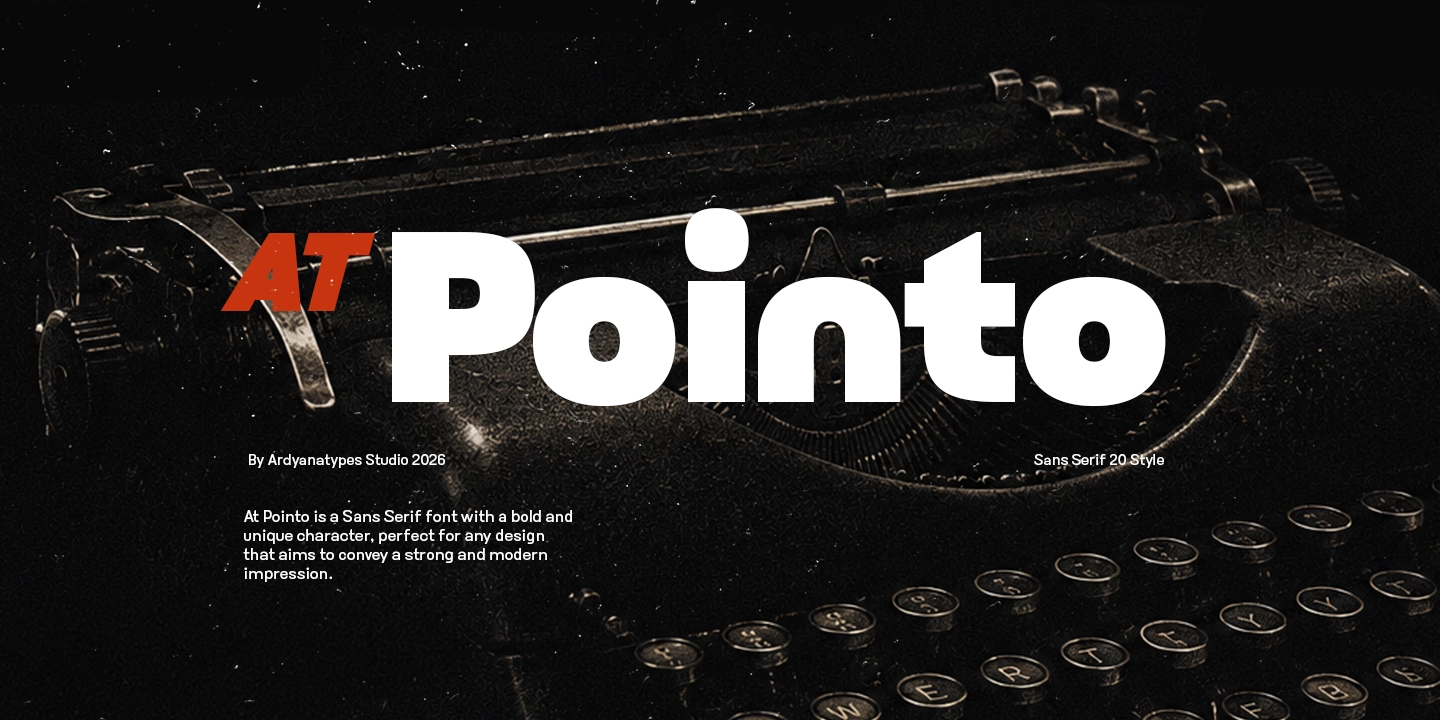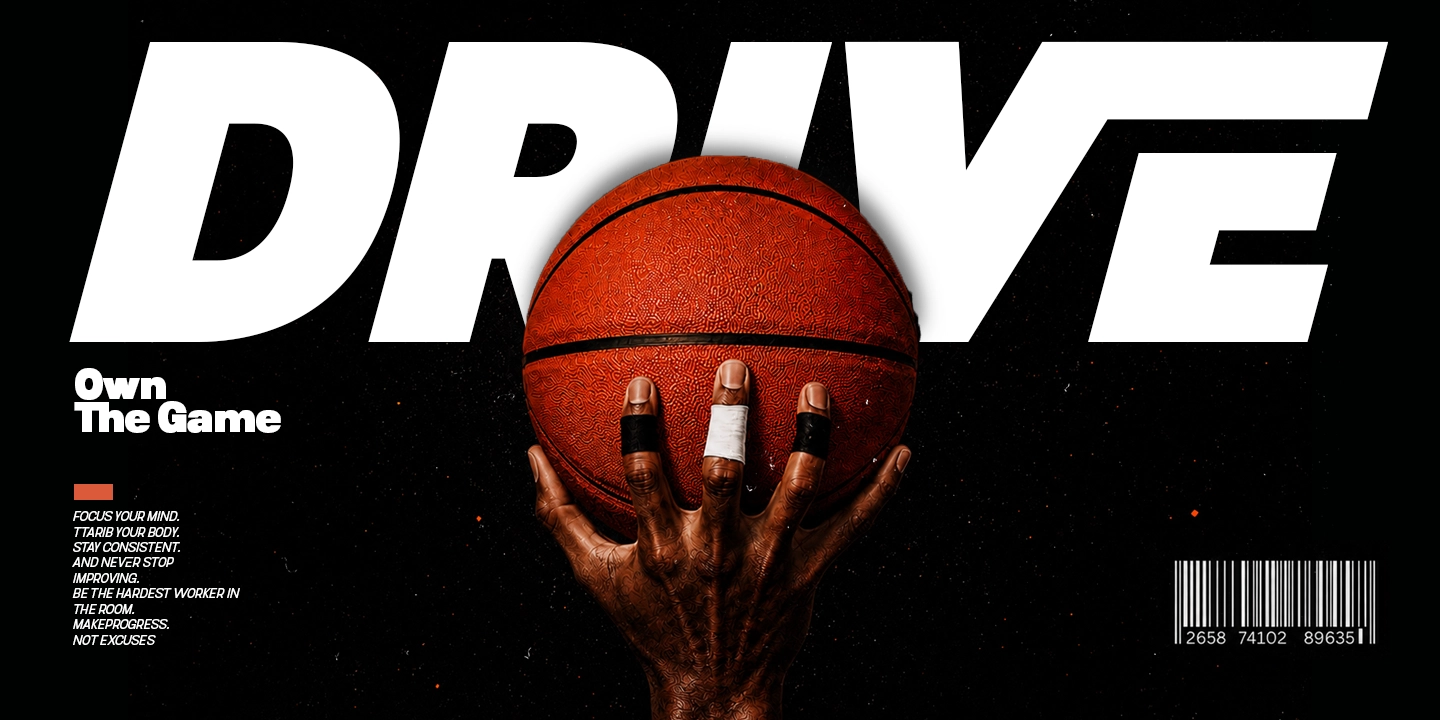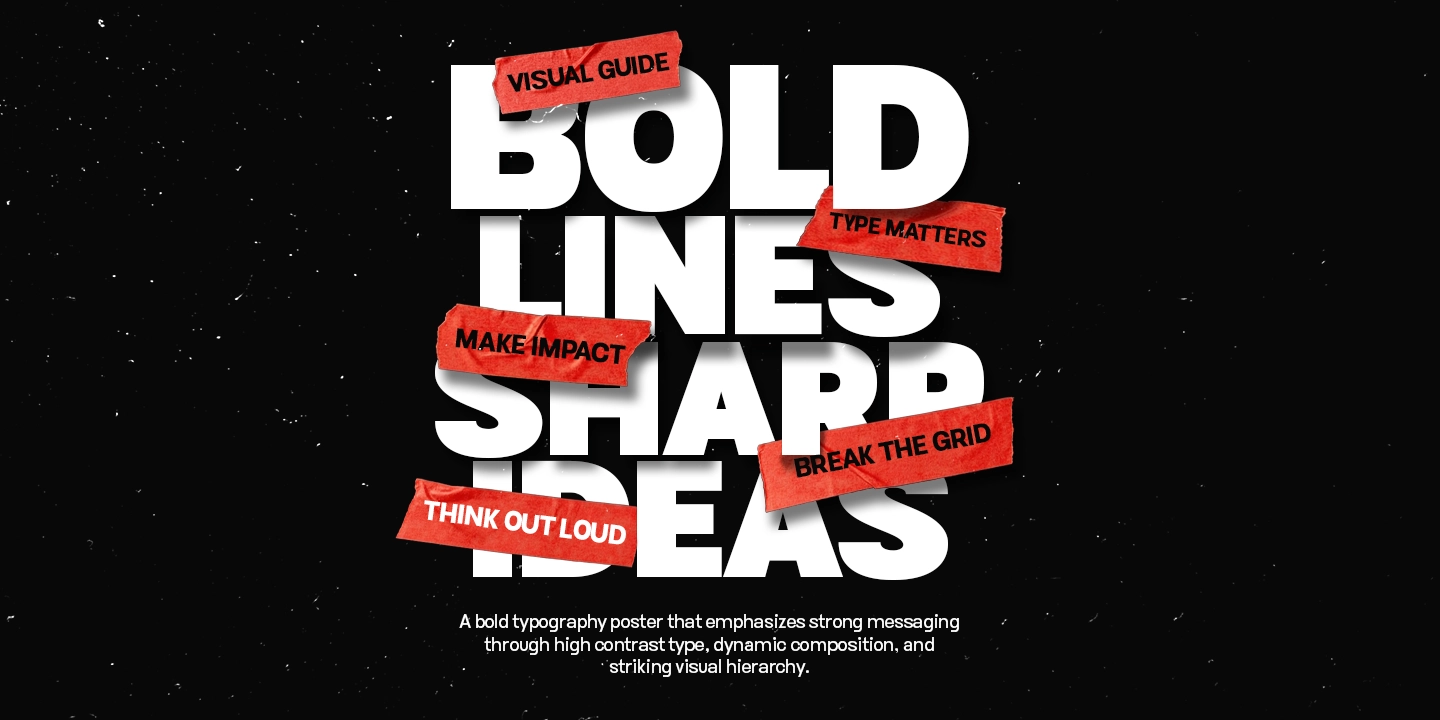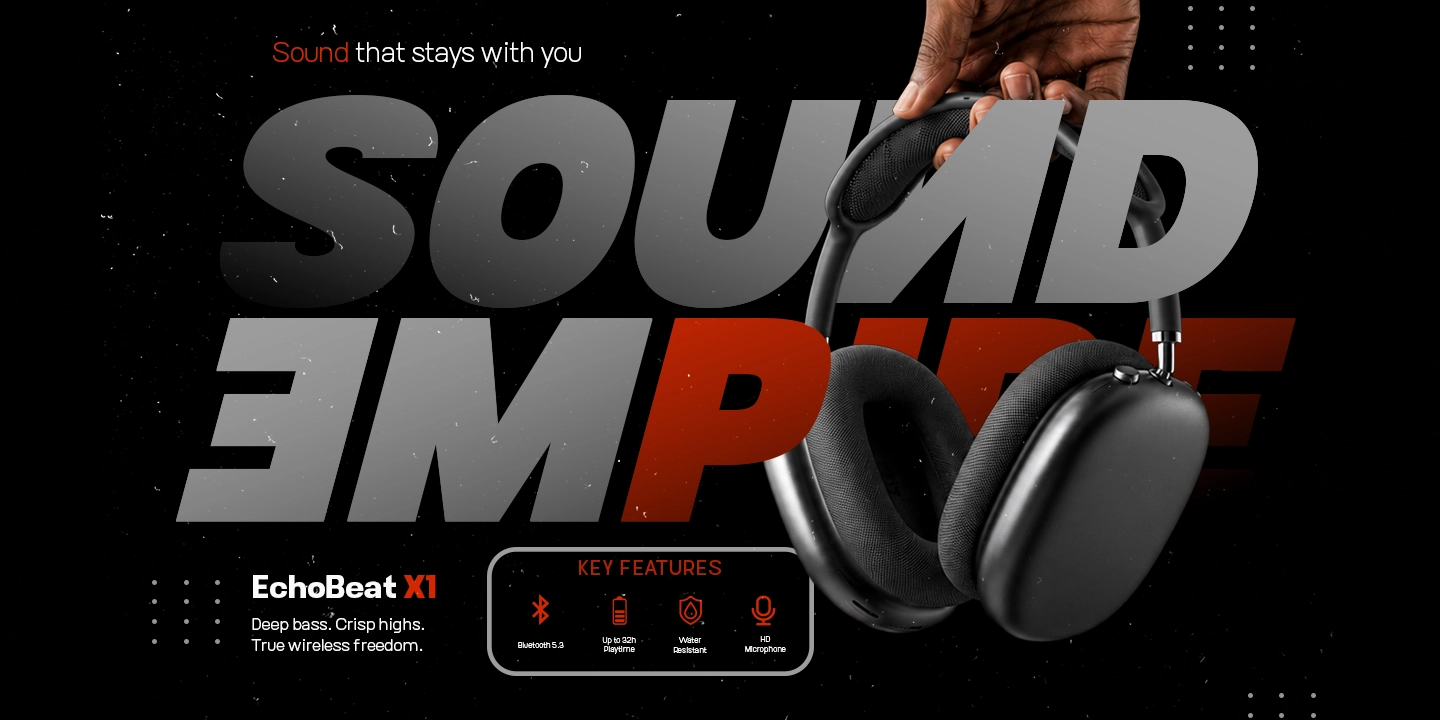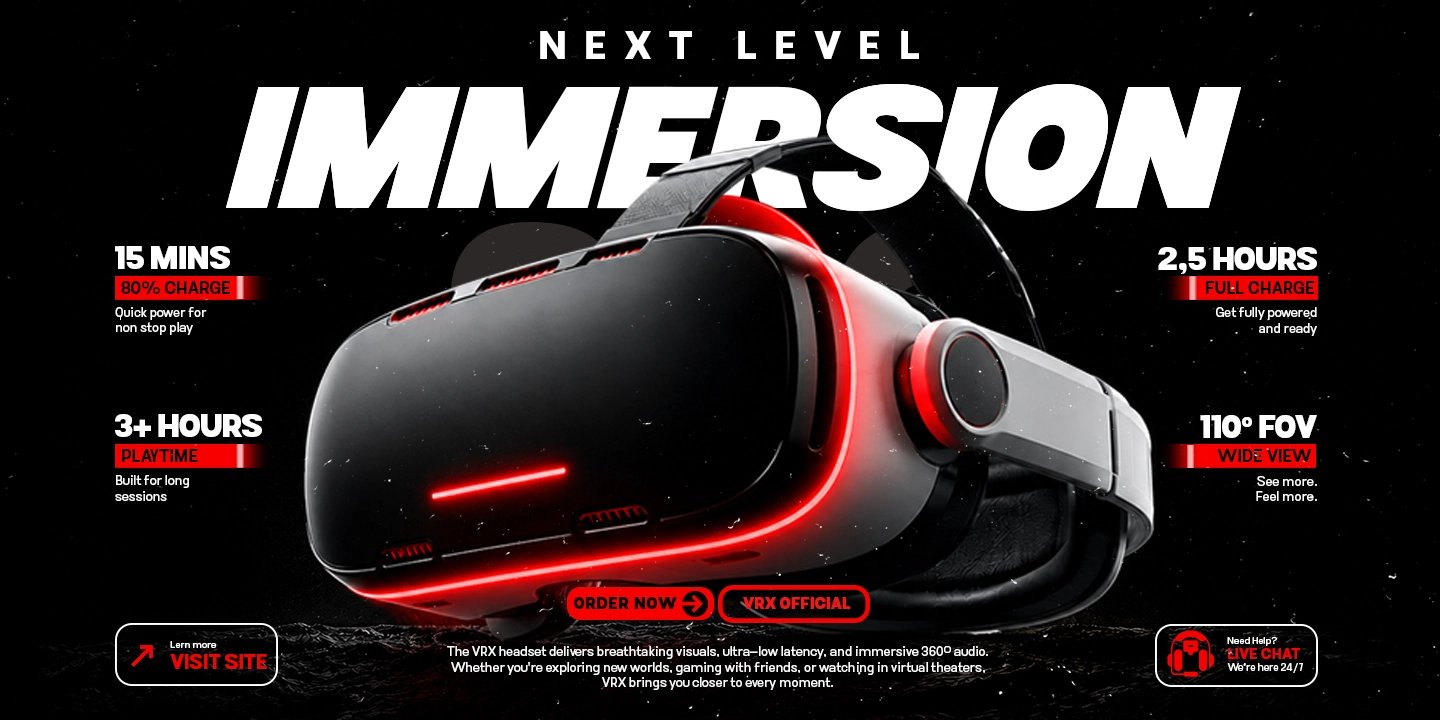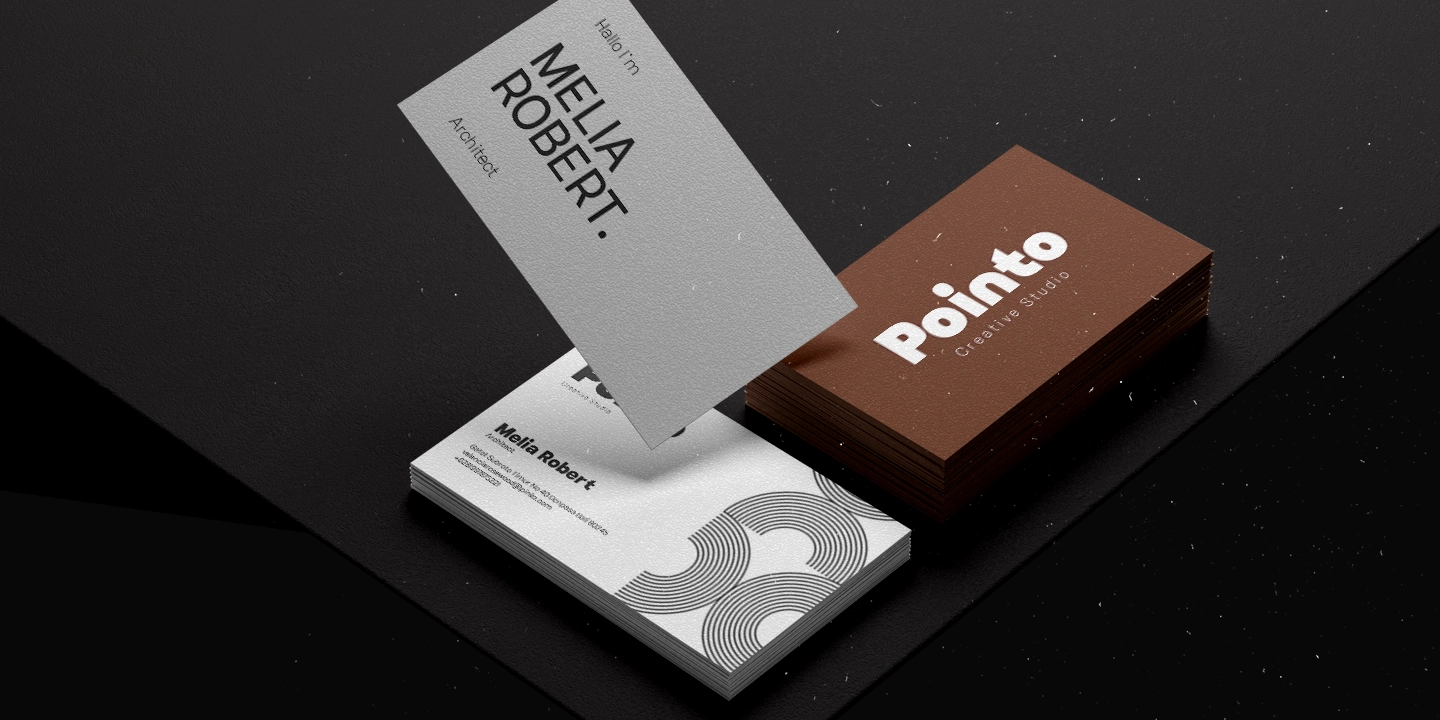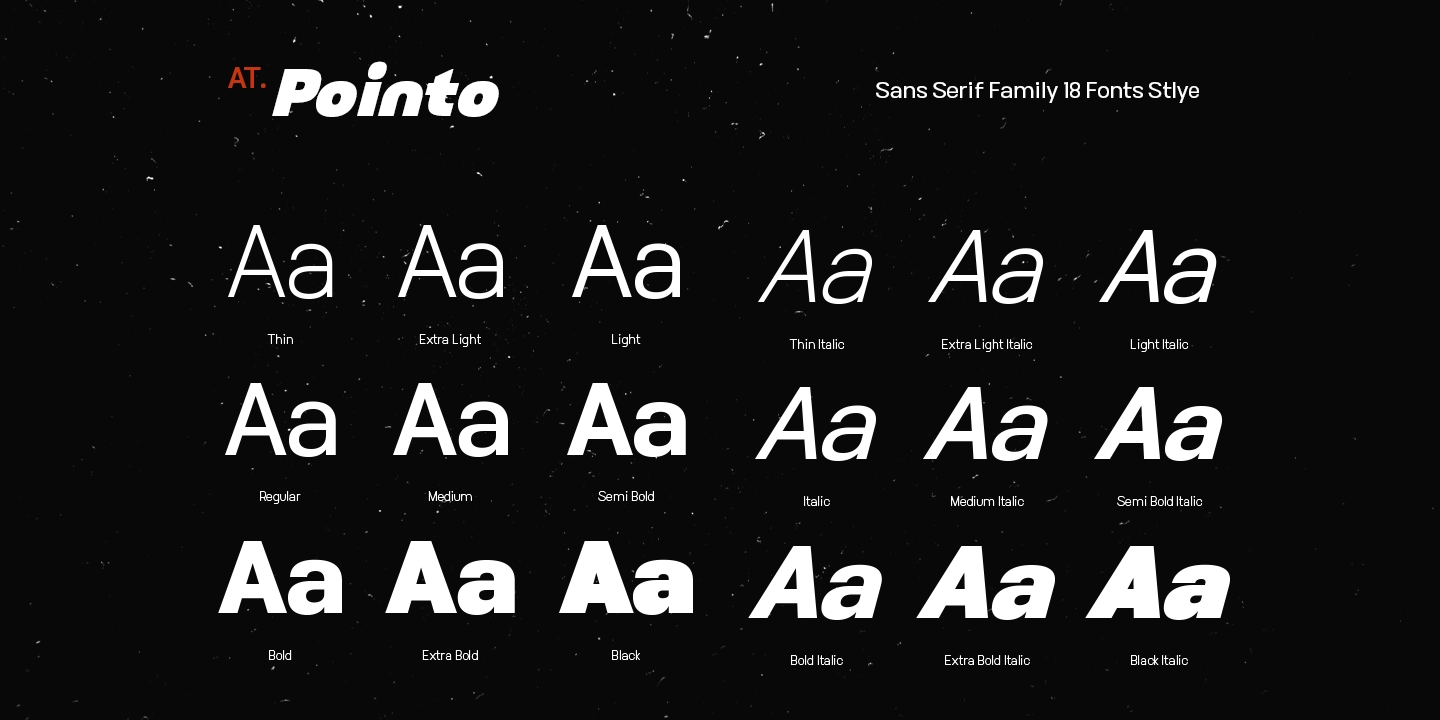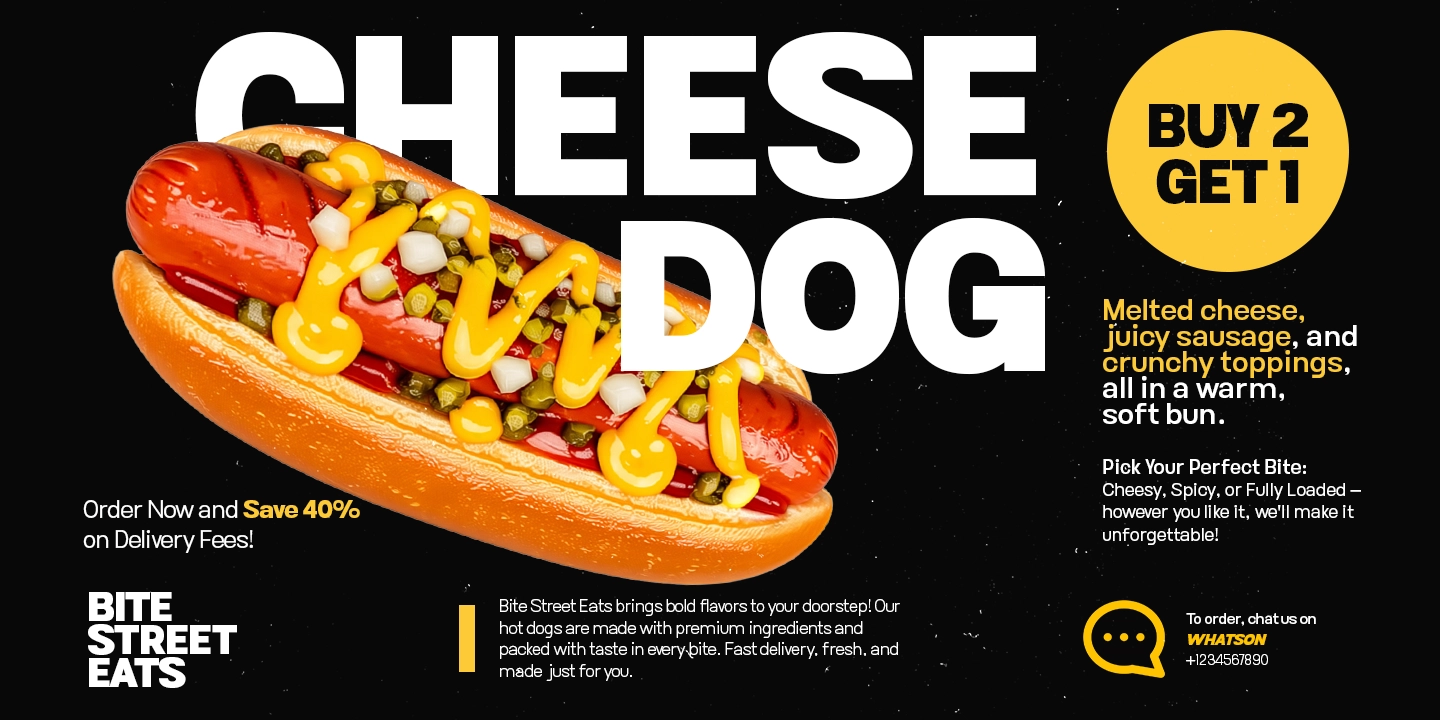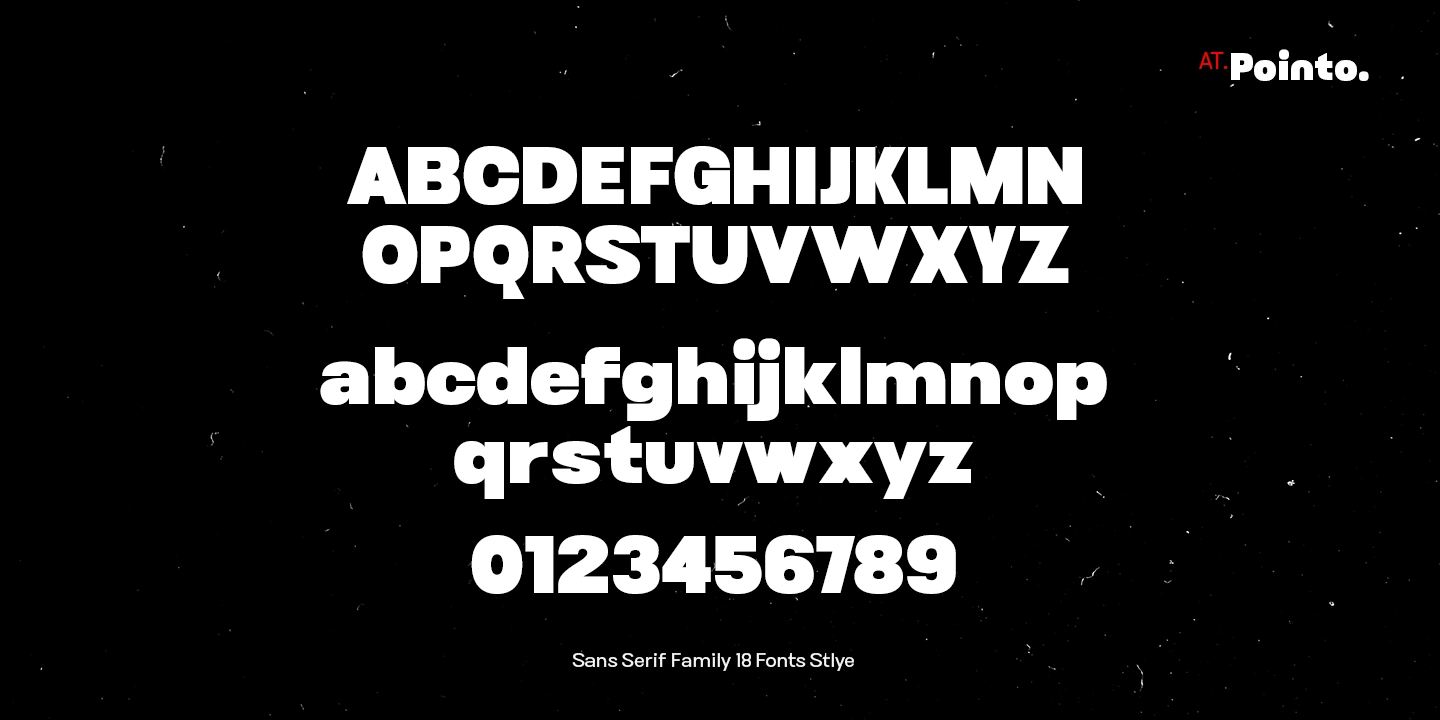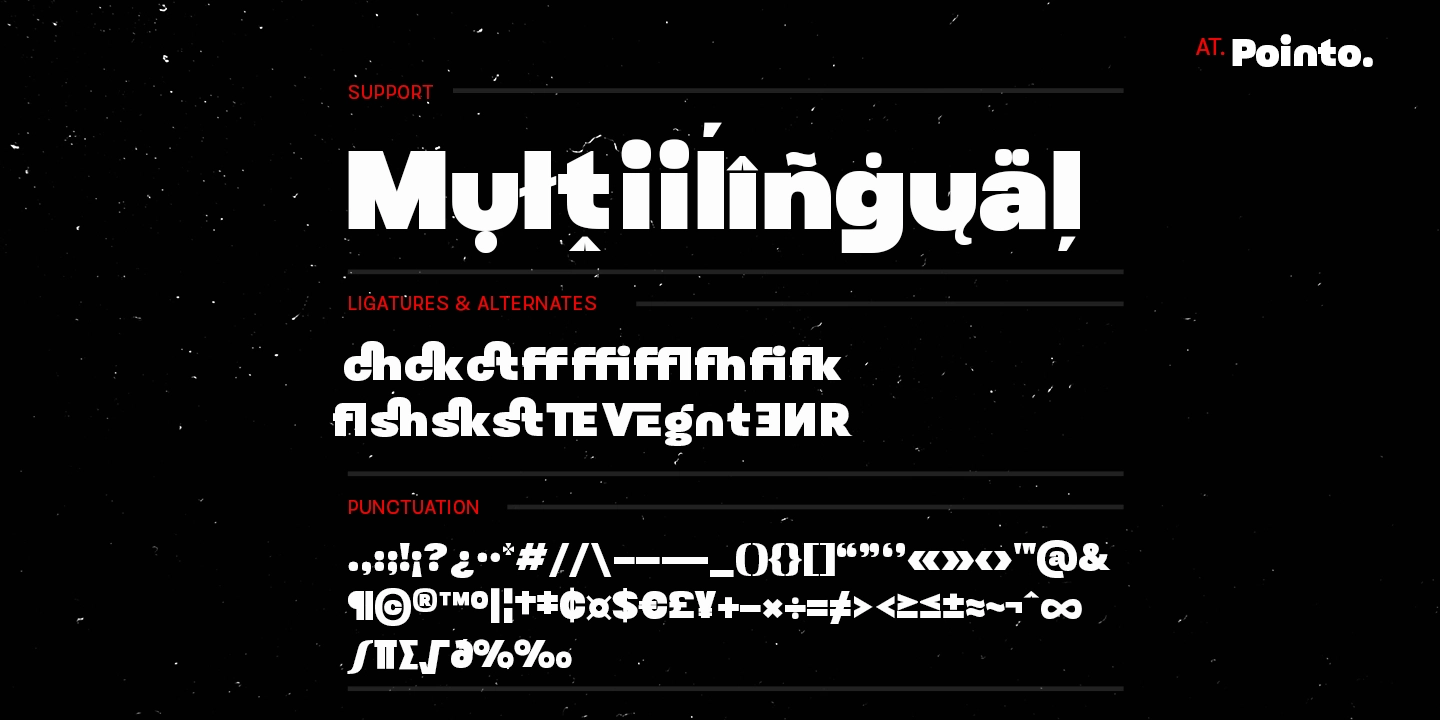
AT Pointo
18 Styles
AT.Ponto is a modern sans serif family designed to deliver strong visual impact with a clean, confident, and energetic personality. Built with bold proportions, dynamic italics, and modern geometric structure, this typeface is crafted for designers who want their work to feel powerful, contemporary, and instantly attention-grabbing.
With 18 versatile styles ranging from Thin to Black, including matching italics, AT.Ponto offers the flexibility to create everything from sleek minimal layouts to aggressive high-impact headlines. The italic styles are specially designed to create movement and momentum, making them perfect for sports branding, technology campaigns, futuristic visuals, and modern advertising.
Its bold character and compact structure make AT.Ponto especially effective for:
• Branding and logo design
• Sports and fitness campaigns
• Streetwear and fashion visuals
• Tech and gaming promotions
• Social media content
• Editorial headlines
• Packaging design
• Posters and advertising
• Motion graphics and digital content
AT.Ponto combines strong readability with a modern industrial aesthetic, allowing it to stand out across both print and digital environments. The family also includes multilingual support, ligatures, alternates, and a wide range of punctuation symbols to support professional creative workflows.
Whether you're building a bold identity system, designing futuristic campaigns, or creating modern visual content with strong personality, AT.Ponto is designed to help your typography feel fast, impactful, and unforgettable.